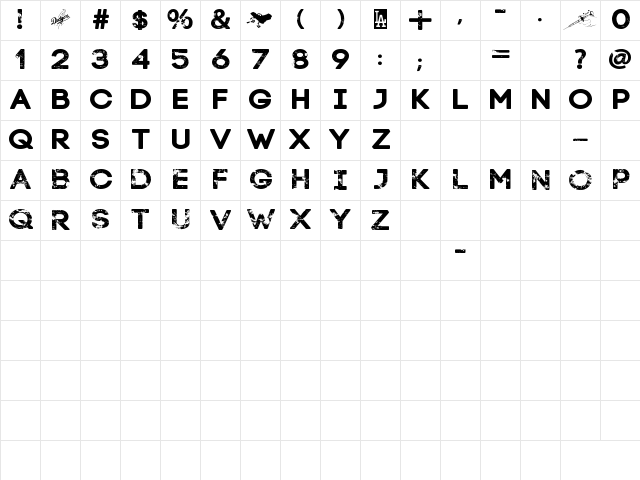
LA Street Kids has an approachable, lighthearted character - its loose, expressive forms are well-suited to children's content, casual branding, and fun-first design.
Font Pairing: Pairs well with a rounded or humanist sans for body copy, maintaining the friendly tone without relying on LA Street Kids to carry extended reading.
Pro Tip: Use LA Street Kids at larger display sizes where its expressive character can land. Pair with a clean, simple sans for body copy to maintain readability.